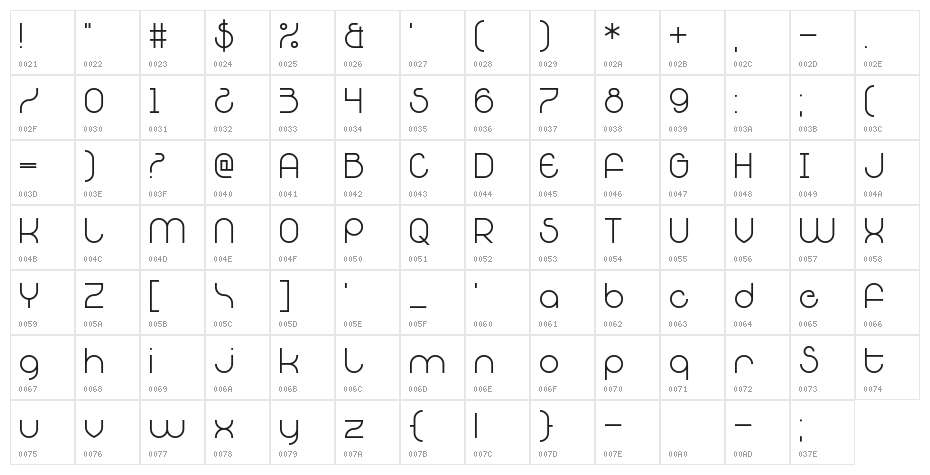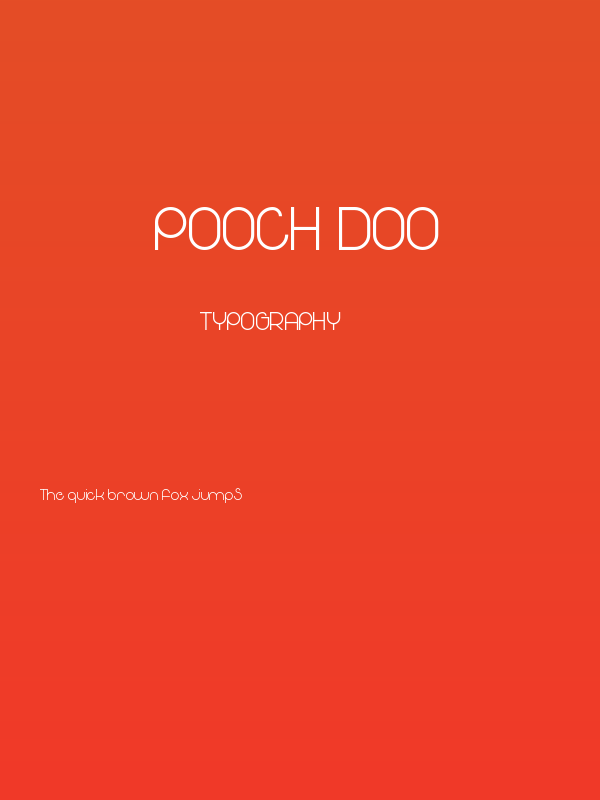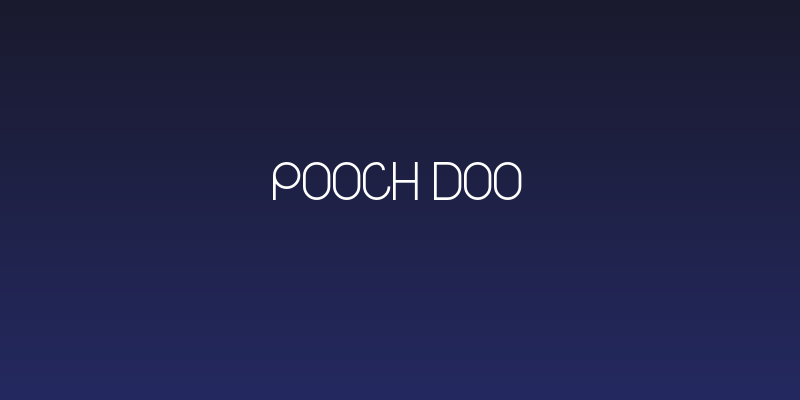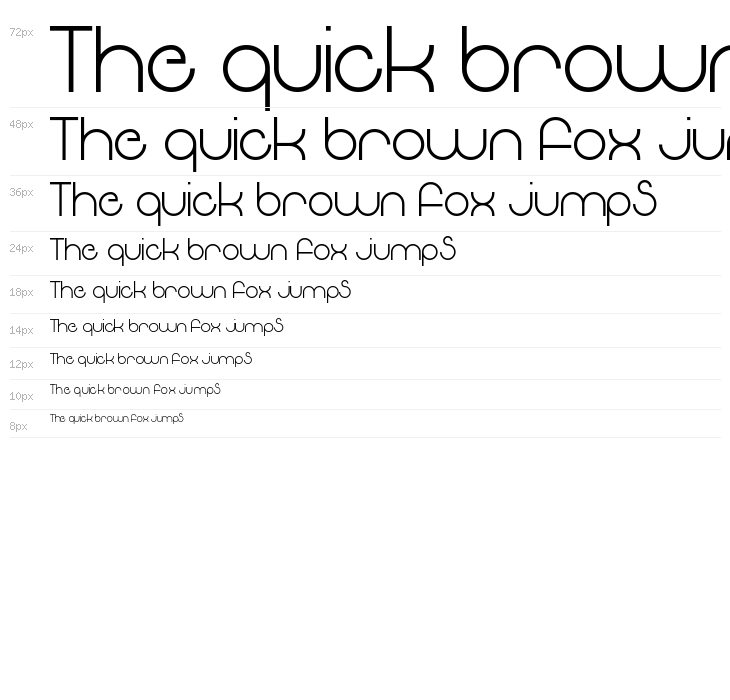
Pooch Doo Font
Pooch Doo Description
This font features a modern and geometric design with clean, rounded edges and a consistent stroke width. The characters are constructed with a minimalist approach, emphasizing simplicity and clarity. Uppercase and lowercase letters maintain a uniform height, contributing to a balanced and harmonious appearance. The numerals and special characters are designed to complement the alphabet, ensuring a cohesive look across all text. The overall style is sleek and contemporary, making it suitable for a variety of design applications.
Use CaseHeadlines, Logos, Digital Media
Proposed ProjectsIdeal for branding, advertising, digital media, and modern web design projects.